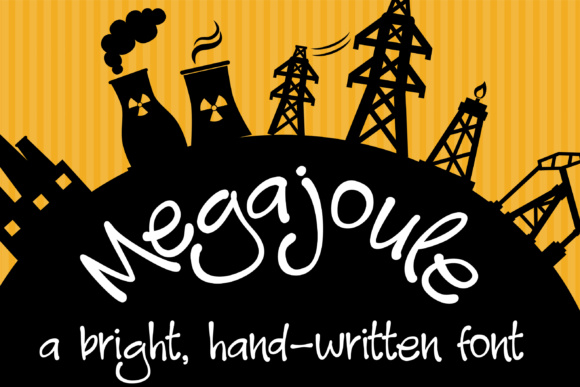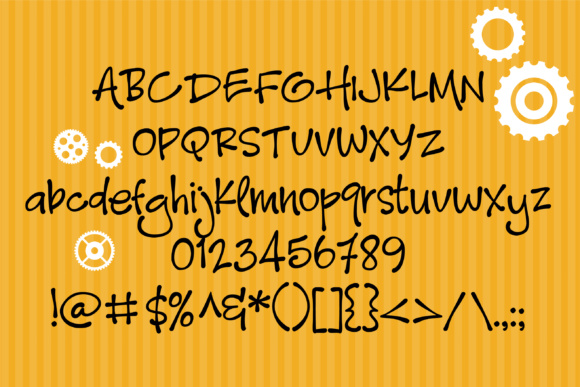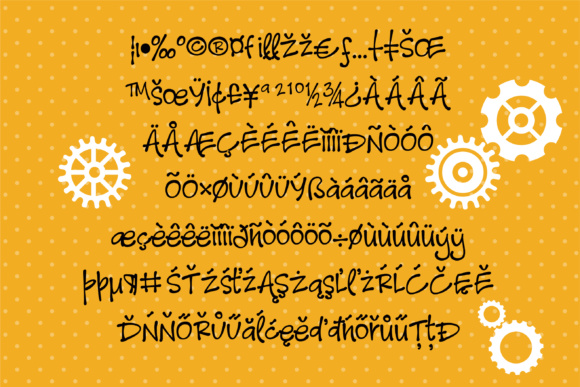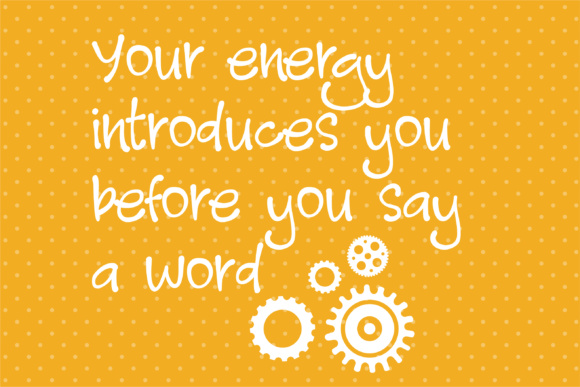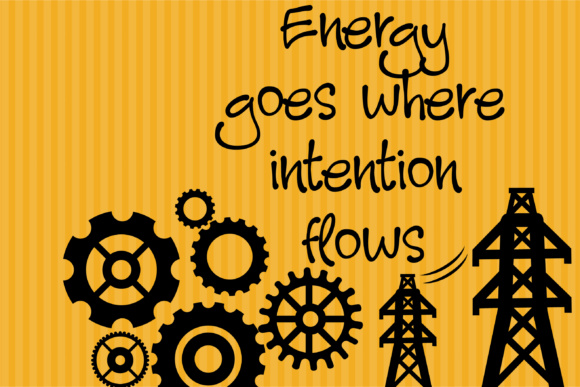
HomeScript FontsMegajoule Font Script Fonts Megajoule Font FacebookXPinterestWhatsApp Megajoule Font Poster 2 Megajoule Font Poster 3 Megajoule Font Poster 4 Megajoule Font Poster 5 About Megajoule Font This hand-printed font has a whimsical feel. DOWNLOAD ON CREATIVE FABRICAThis font is sold and delivered by Creative Fabrica. Font Canyon may earn a commission if you buy through this link. People also explored Carmila Font The Glasses Font Showhouse Font Night Show Font Blandore Font That Rainbow Font Bulgathi Font Morning Vibes Duo Font Funttastic Pop Font 259 0 TagsMegajoule Font Previous articleApple Crisp FontNext articleRadioactive Decay Font LEAVE A REPLY Cancel reply Comment: Please enter your comment! Name:* Please enter your name here Email:* You have entered an incorrect email address! Please enter your email address here Website: Save my name, email, and website in this browser for the next time I comment. Personal Use Free Coconote Personal Use Free Read more about this font Avagan Personal Use Free Read more about this font Spring Personal Use Free Read more about this font Delions Personal Use Free Read more about this font BLOG The 10 Best Handwriting Fonts to Add Personality to Your Designs 10 of the Best Handwriting Fonts for Adding Personality to Your Designs There will undoubtedly be no other better choice than handwriting fonts to give... To increase your work productivity, choose the most readable fonts. Free vs Paid Fonts: Why Investing in Premium Fonts Is Worth It Using Fonts in Digital Marketing: Tips to Strengthen Your Brand Identity